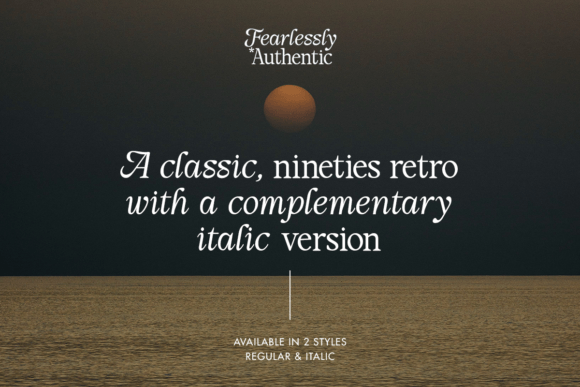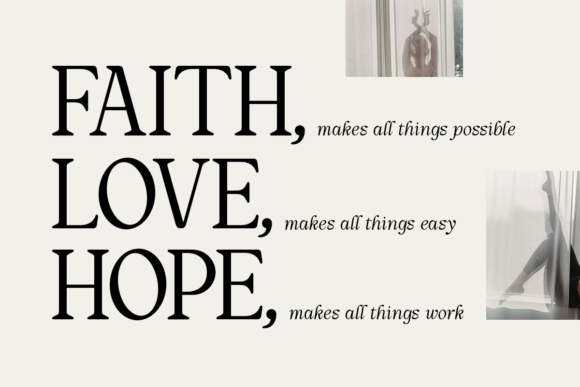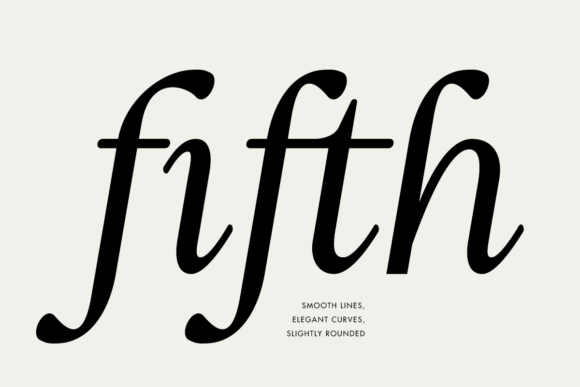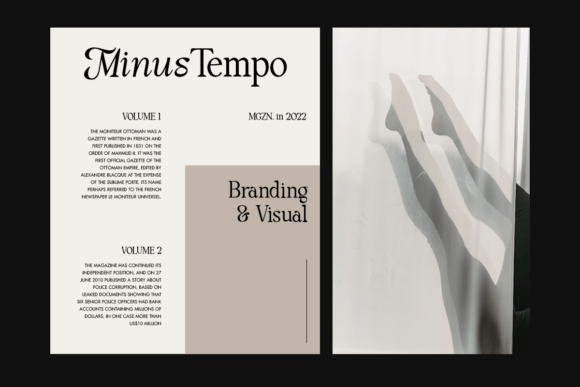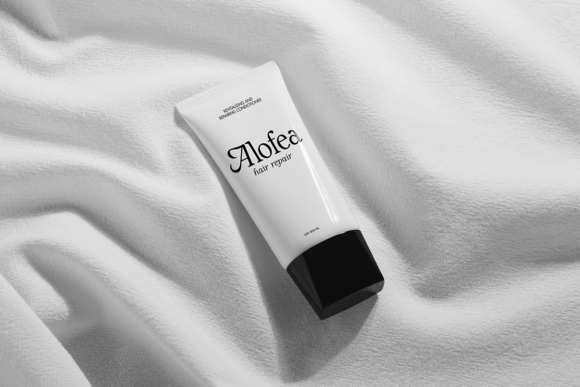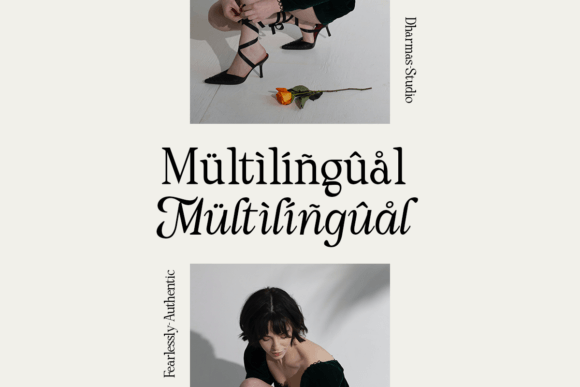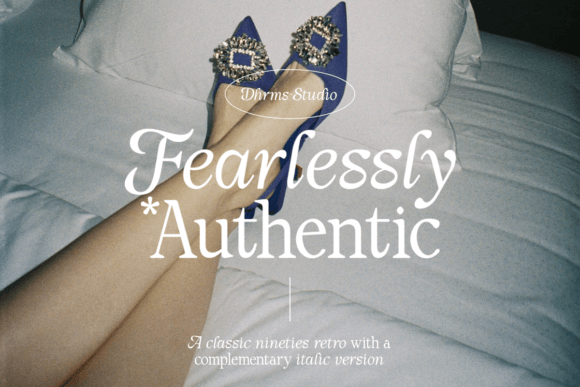
Fearlessly Authentic Font: The Ultimate Nineties Retro Revival
Are you ready to take a blast from the past and inject some serious nostalgia into your designs? Look no further than the Fearlessly Authentic Font, the newest addition to the world of typography. This stunning nineties retro font is here to shake things up and bring back the iconic style of the 80s and 90s.
The Trend of Thin Serif Fonts
In recent years, the trend in font design has been all about thin serif fonts. These elegant and refined typefaces have been dominating the design landscape, evoking memories of the iconic styles of the 80s and 90s. But what if you want to stand out from the crowd and add a unique twist to this classic look? That’s where Fearlessly Authentic Font comes in.
Introducing Fearlessly Authentic Font
Say hello to the new classic nineties retro font, Fearlessly Authentic! This gorgeous font takes the traditional thin serif look and adds a slightly rounded touch, giving it a distinctly retro vibe. The result is a design that’s both nostalgic and refreshingly modern.
What Makes Fearlessly Authentic Font So Special?
So, what sets Fearlessly Authentic Font apart from other fonts in its class? Here are just a few reasons why designers and crafters are falling in love with this amazing typeface:
- Unique Retro Style: Fearlessly Authentic Font boasts a one-of-a-kind retro look that’s sure to turn heads. The subtle rounding of the serifs gives the font a softer, more approachable feel that’s perfect for designs that need a bit of personality.
- Highly Versatile: Whether you’re working on a logo, a poster, or a website, Fearlessly Authentic Font is the perfect choice. Its clean lines and classic style make it suitable for a wide range of design applications.
- Easy to Read: Despite its retro vibe, Fearlessly Authentic Font is incredibly legible, even at smaller sizes. This makes it perfect for body text, headlines, and titles.
How to Use Fearlessly Authentic Font in Your Designs
Ready to get creative with Fearlessly Authentic Font? Here are a few ideas to get you started:
- Create a Vintage-Inspired Logo: Use Fearlessly Authentic Font to create a logo that pays homage to the iconic styles of the 80s and 90s. Perfect for brands that want to evoke a sense of nostalgia and retro charm.
- Design a Retro-Style Poster: Add a touch of nostalgia to your posters and flyers with Fearlessly Authentic Font. Its bold, eye-catching style is sure to grab attention and leave a lasting impression.
- Give Your Website a Retro Makeover: Update your website with a Fearlessly Authentic Font-inspired design. Use the font for headings, titles, and even body text to create a cohesive and stylish look.
Tips and Tricks for Getting the Most Out of Fearlessly Authentic Font
To help you get the most out of Fearlessly Authentic Font, here are a few expert tips and tricks:
- Experiment with Colors: Don’t be afraid to try out different color combinations with Fearlessly Authentic Font. The font looks great in bold, bright colors, as well as more muted, pastel shades.
- Play with Pairings: Fearlessly Authentic Font pairs beautifully with a range of other fonts. Try combining it with a sans-serif font for a striking contrast, or with another serif font for a more subtle look.
- Don’t Forget About Texture: Add an extra layer of depth to your designs by incorporating texture and patterns. Fearlessly Authentic Font looks great with subtle textures and backgrounds.
| Font Name | Fearlessly Authentic Font |
| Author | Dharmas Studio |